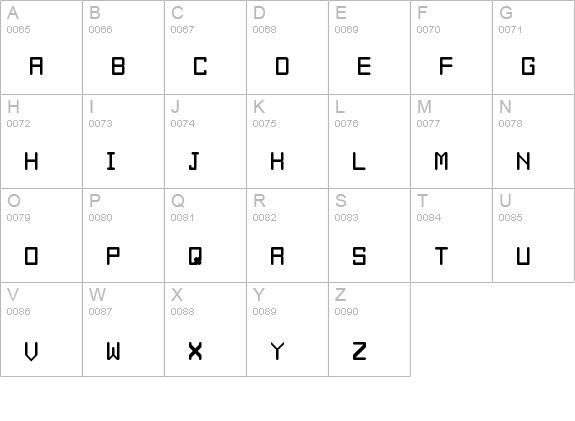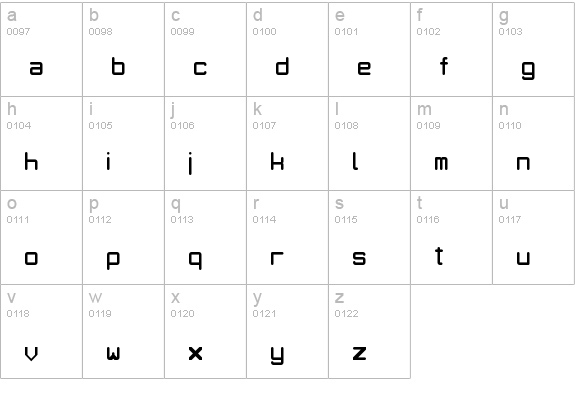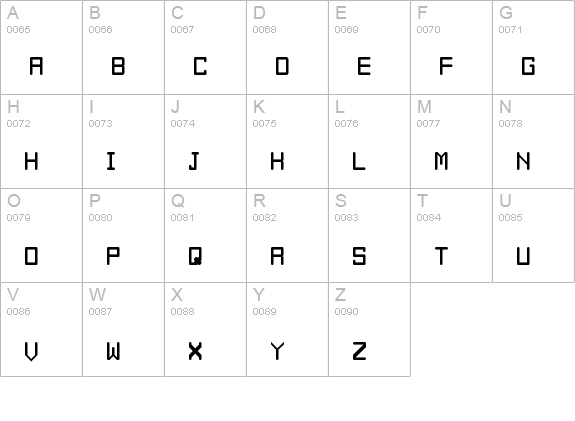
Digitrix Regular is the standard, neutral variant in the Digitrix typeface family \xE2\x80\x94 well suited to general body text, paragraphs, and standard typographic work.
Digitrix Regular is a modern and sleek font that effortlessly combines elegance with a touch of playfulness. Its clean lines and rounded edges give it a friendly and approachable appearance, making it suitable for a wide range of design projects. Whether you're creating a logo, designing a website, or crafting a poster, Digitrix Regular will add a touch of sophistication and professionalism to your work. One of the best things about Digitrix Regular is that it is available for free download at FontsMarket.com. This means that you can easily access this amazing font without breaking the bank. Whether you're a professional designer or a hobbyist, you can enjoy the benefits of Digitrix Regular without any cost. The versatility of Digitrix Regular is another standout feature. Its legibility and clarity make it ideal for both large and small text sizes. Whether you're using it for headlines or body text, Digitrix Regular will ensure that your message is conveyed with clarity and impact. With a vast array of characters and glyphs, Digitrix Regular offers endless possibilities for creative expression. Its extensive character set includes uppercase and lowercase letters, numbers, punctuation marks, and special symbols. This allows you to create unique and eye-catching designs that stand out from the crowd. So why wait? Download Digitrix Regular for free at FontsMarket.com and unlock the unlimited potential of this amazing font. Elevate your design projects to new heights with the elegance and versatility of Digitrix Regular. Whether you're designing for print or digital media, this font is sure to impress. Don't miss out on the opportunity to enhance your creative endeavors with this incredible font.